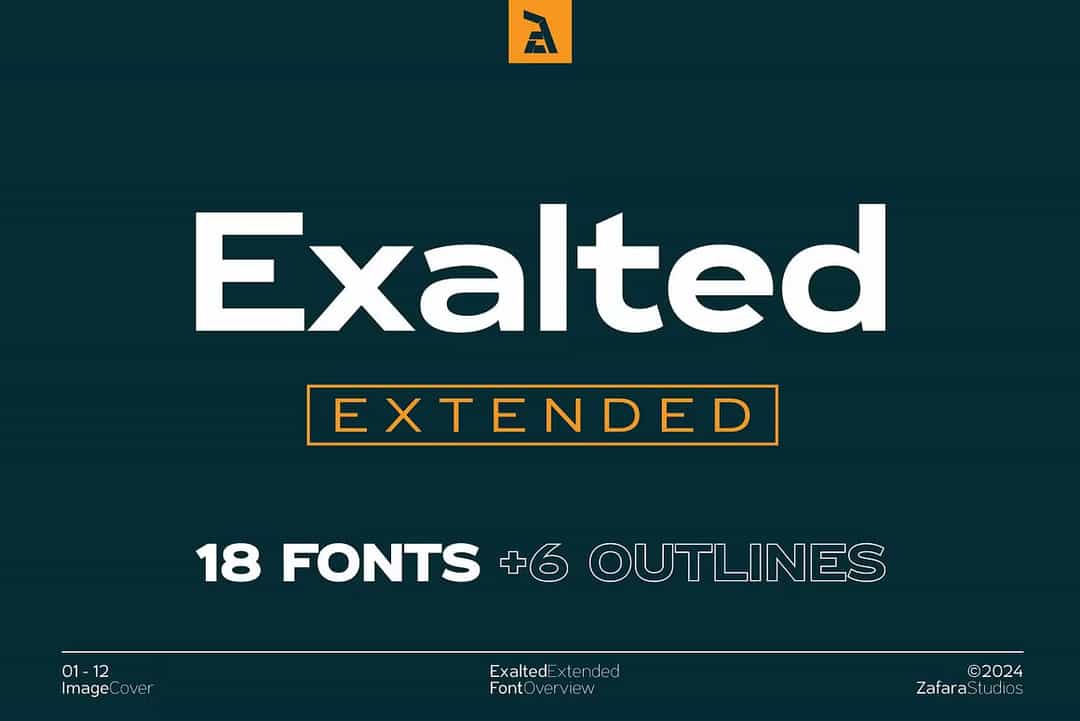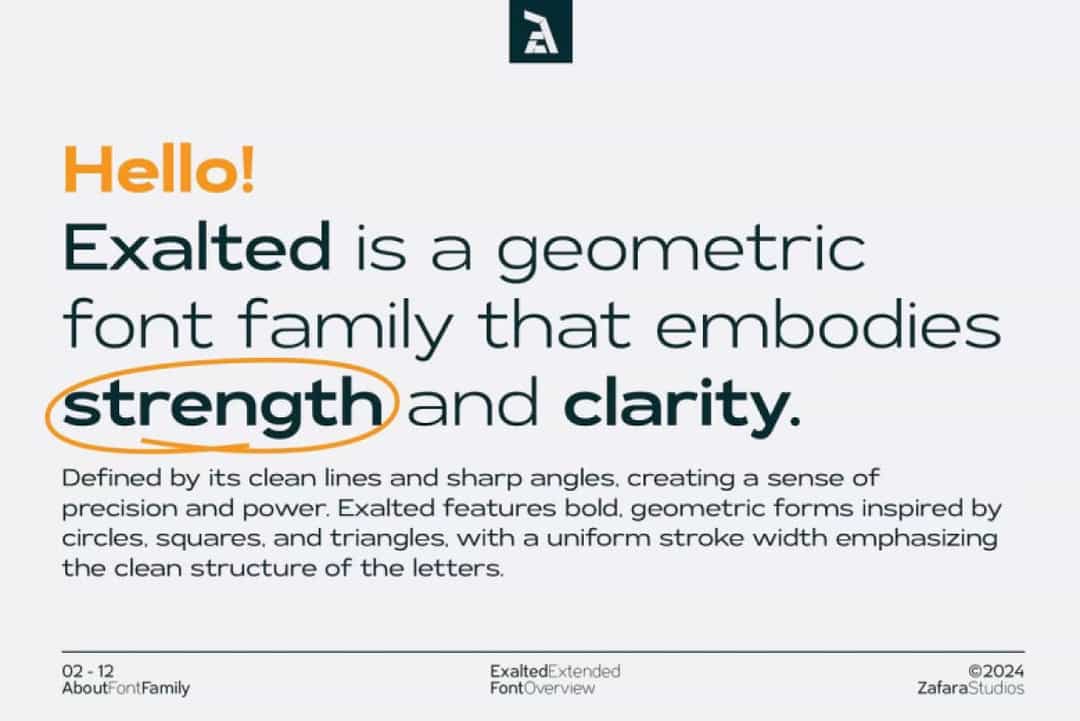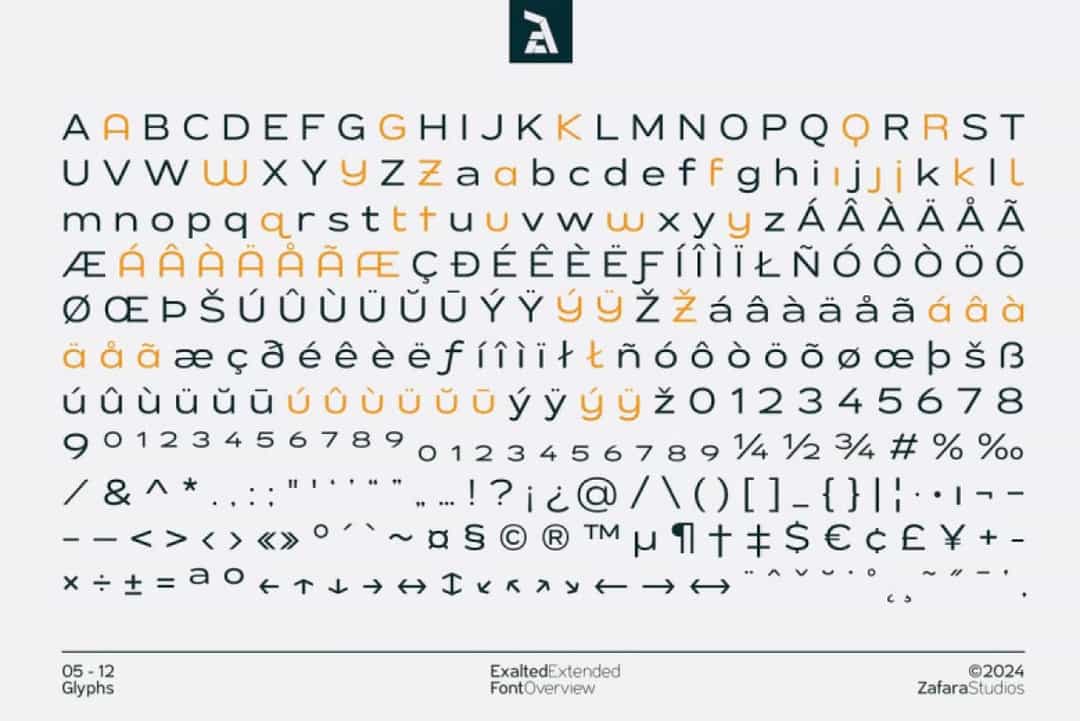
Exalted is an abstract font characterized by power and clarity. Distinguished by clear edges and crisp lines, Exalted conveys power with precision. Inspired by squares, circles and triangles with identical stroke widths; Exalted brings powerful geometric designs into lettering with ease.